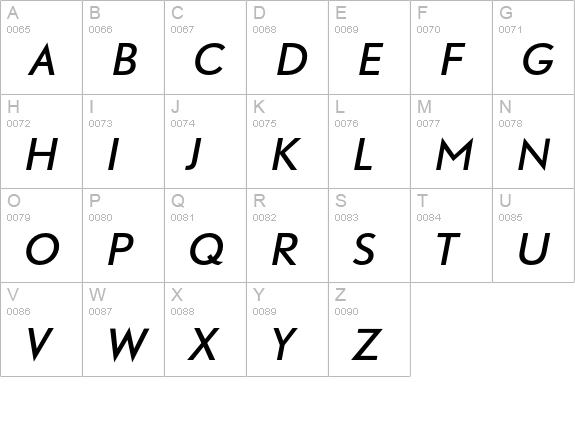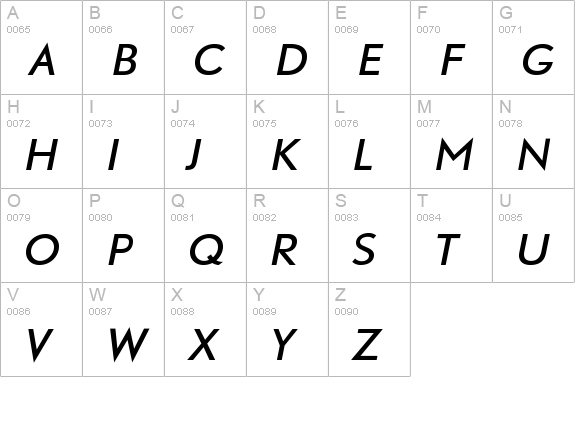
DTLNobelT-Italic is a distinctive, italic variant in the DTLNobelT typeface family \xE2\x80\x94 well suited to design and typography projects.
The DTLNobelT-Italic font exudes a sense of elegance and sophistication with its sleek and stylish design. Its italicized characters add a touch of flair, making it perfect for projects that require a touch of sophistication. This versatile font is ideal for a wide range of design applications, from branding to editorial design. And the best part? DTLNobelT-Italic is completely free to download at FontsMarket.com! Whether you're a seasoned designer looking to add a new font to your collection or a beginner exploring typography for the first time, this font is a fantastic choice. Don't miss out on the opportunity to enhance your projects with this beautiful and freely available font.